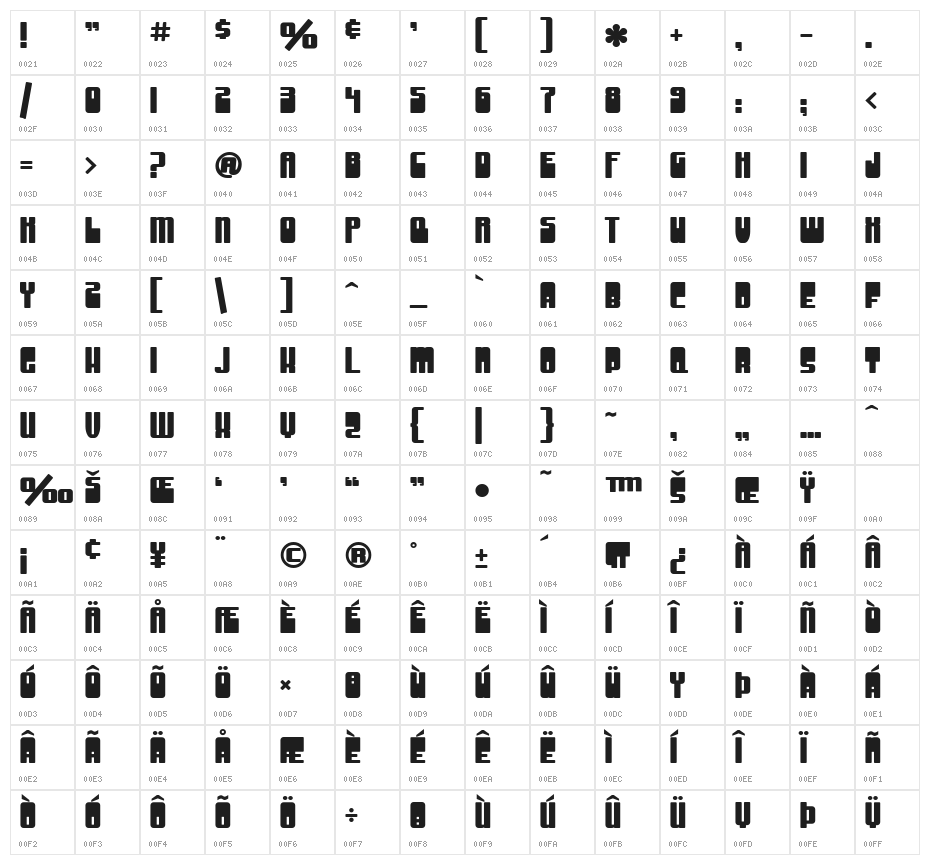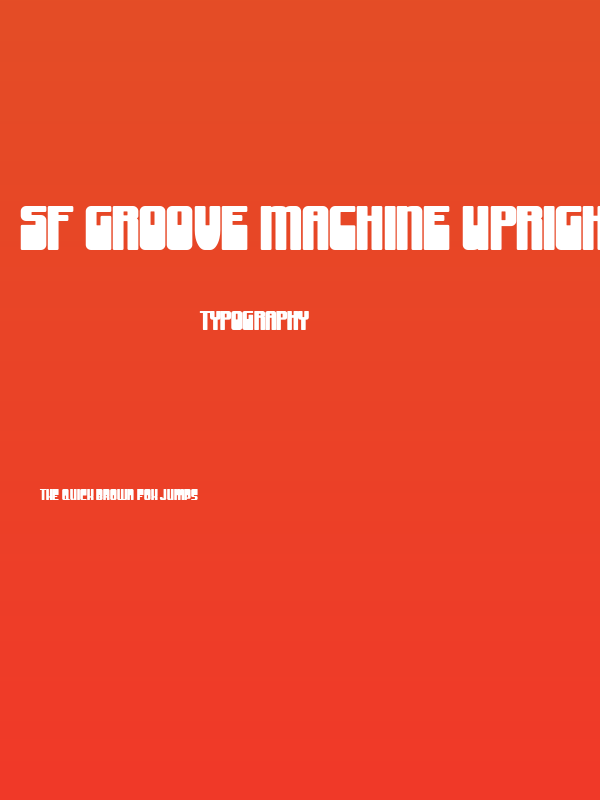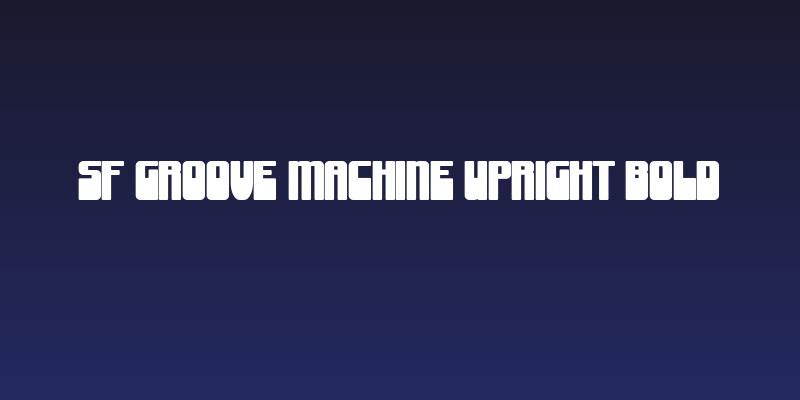
SF Groove Machine Upright Bold Font
SF Groove Machine Upright Bold Description
This bold, upright font features a striking, geometric design with thick, blocky characters. The letters are uniformly wide, creating a strong visual impact. The uppercase and lowercase letters maintain a consistent style, with rounded edges and a modern aesthetic. The numbers and special characters are equally bold, ensuring readability and emphasis. This font is ideal for projects that require a bold statement, such as posters, headlines, and branding materials. Its unique style makes it stand out, while its uniformity ensures clarity and legibility.
| Proposed Projects | Ideal for posters, headlines, branding, and any project needing a bold statement. |